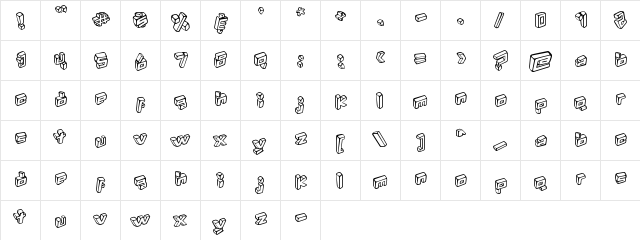
Kotak Regular
Design Context for Kotak Typeface
Kotak is a composed and adaptable typeface that performs quietly and consistently across a wide range of design contexts.